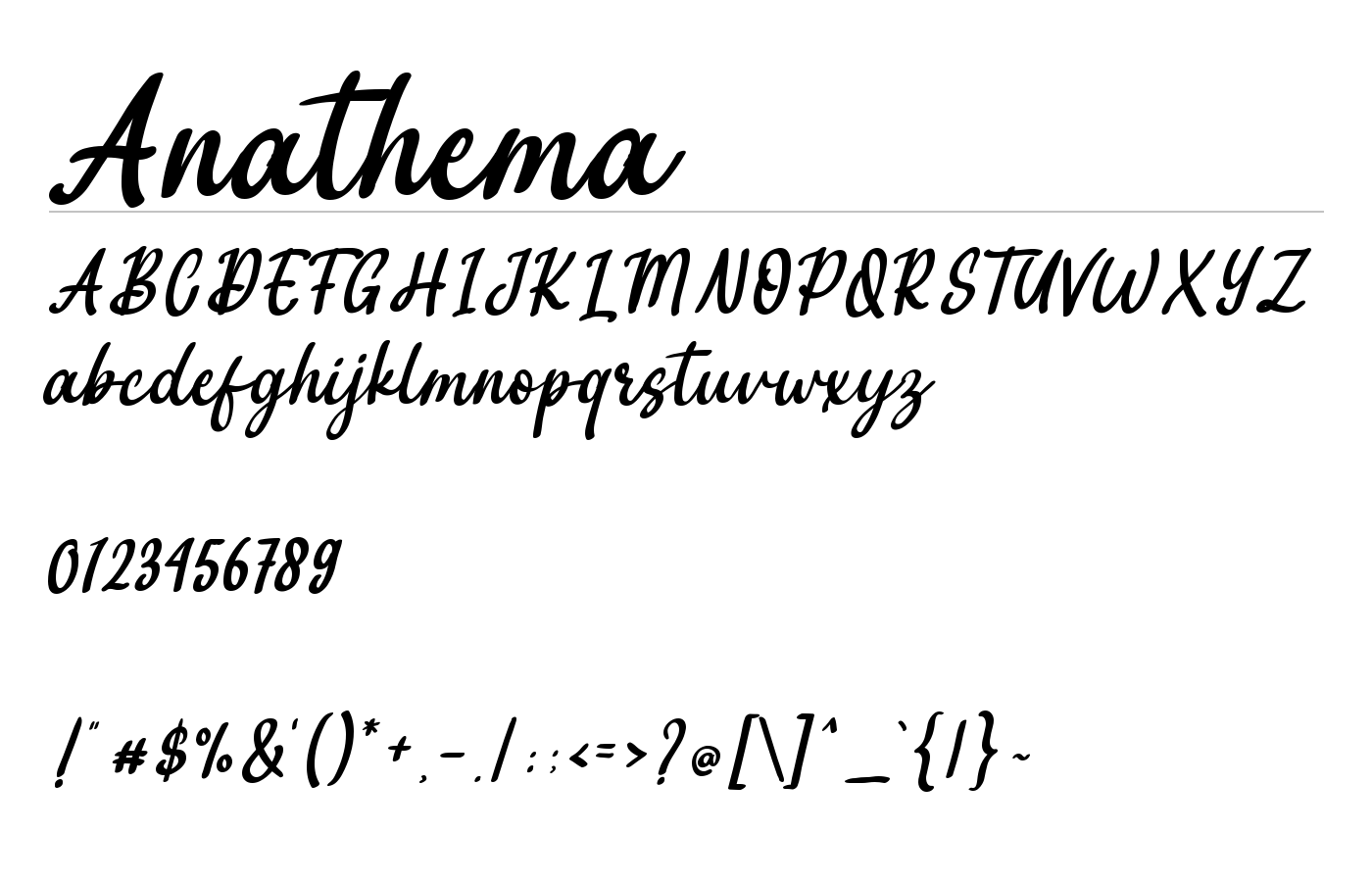
Anathema is an elegant script font with a smooth, flowing style that mimics natural handwriting while maintaining clear readability. Its moderate weight and slightly condensed letterforms give it a refined yet approachable personality, making it a great choice for invitations, branding, and editorial designs that seek a personal and sophisticated touch. This versatile font works well in both display and smaller sizes where a graceful, stylish look is desired.
Anathema Font
About Anathema Font